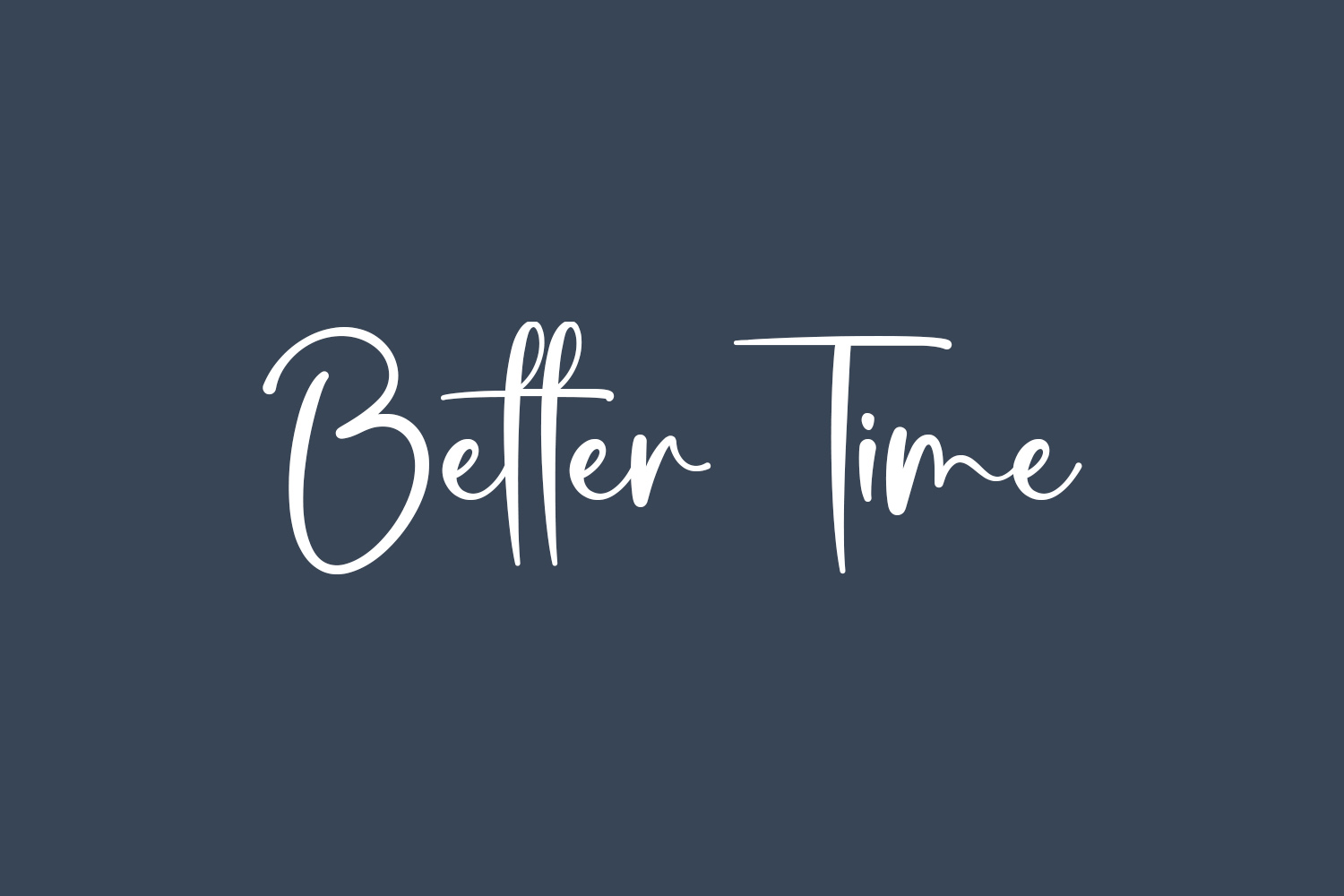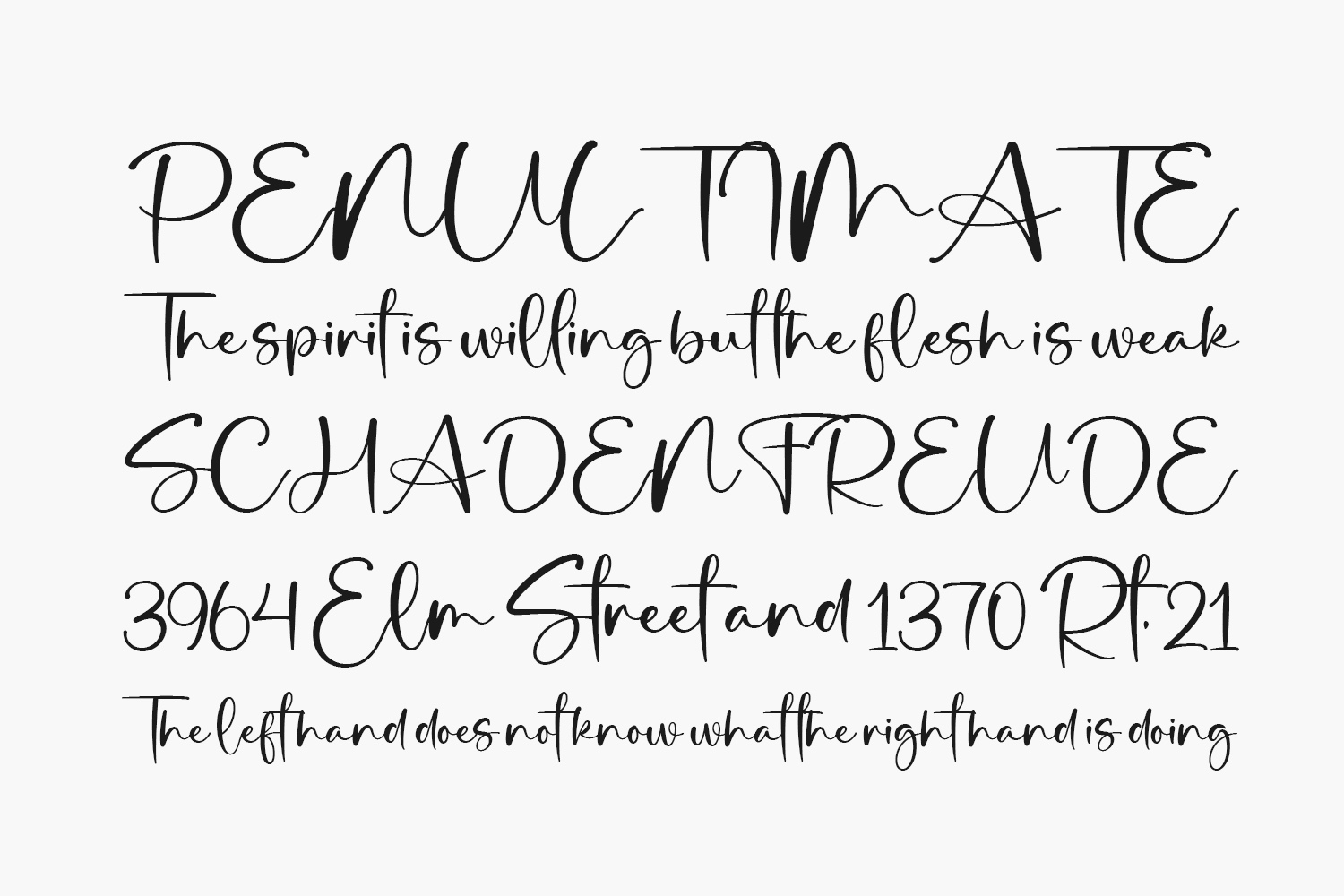
Experience the charm of Better Time Free Font, a graceful and refined script font radiating sophistication and style. Meticulously designed to infuse your creations with a captivating and rejuvenating aesthetic, this font is perfect for those seeking a beautiful and polished appearance in their designs. Elevate your projects with the timeless elegance of Better Time. Better Time Free Font is free for personal use only. Please purchase the full version for commercial use.
Designed by Ramli Setiadi